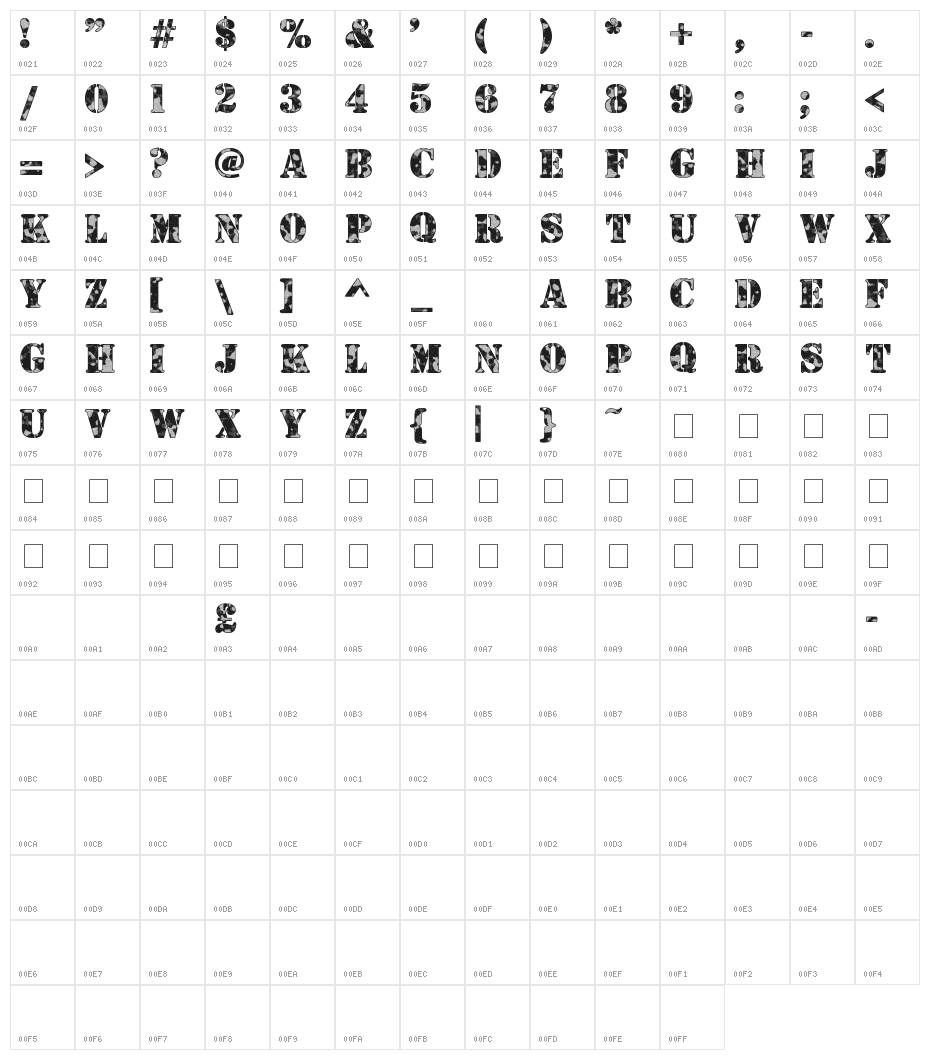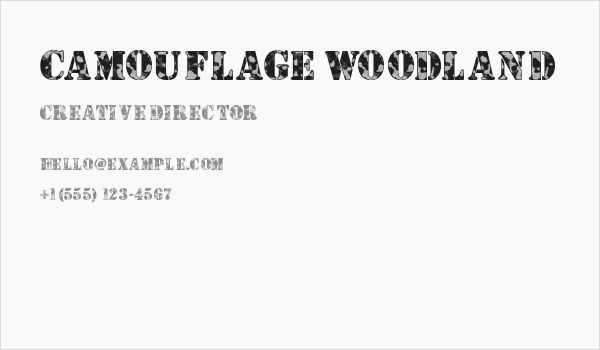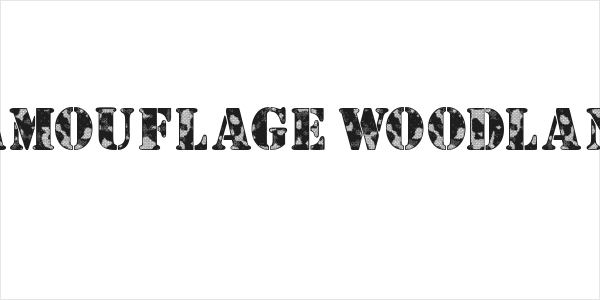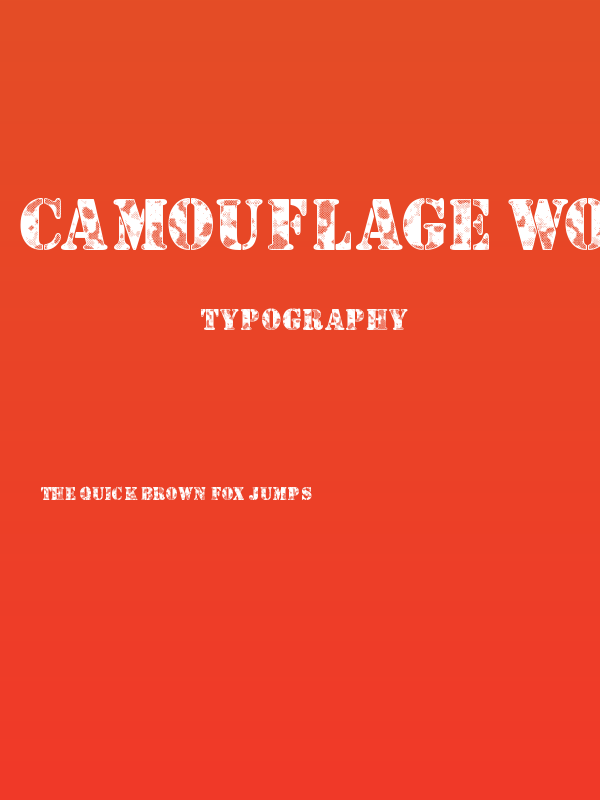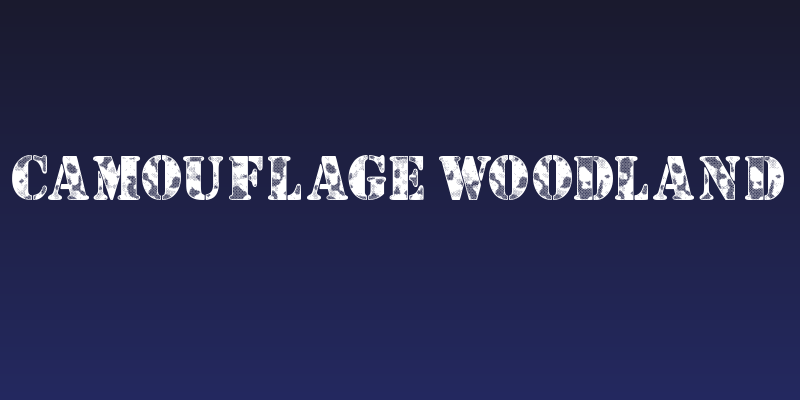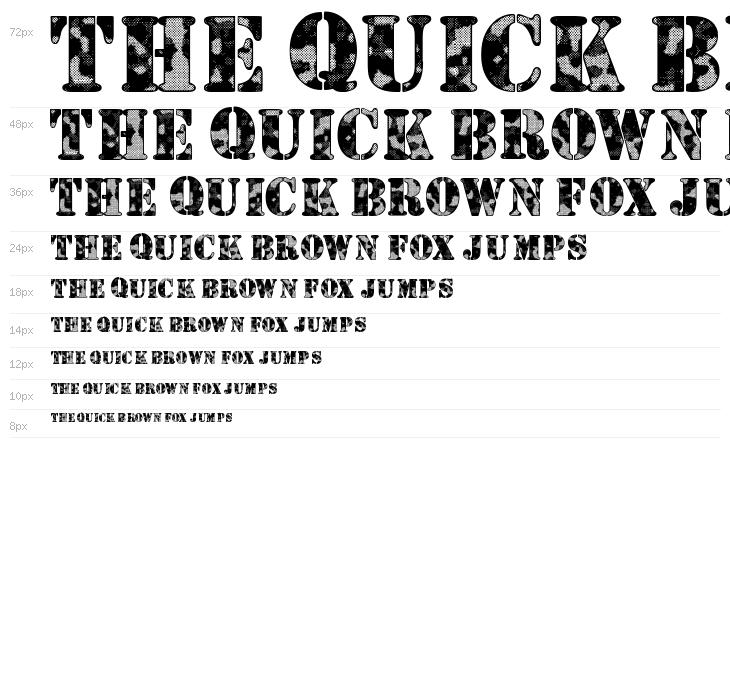
Camouflage Woodland Font
Camouflage Woodland Description
This font features a bold and rugged design with a camouflage pattern embedded within each character. The letters are uppercase and have a strong, sturdy appearance, reminiscent of military or outdoor themes. The camouflage pattern adds a textured and dynamic look, making it stand out for projects that require a bold statement. The characters are well-defined and maintain a consistent style throughout, with a slight serif touch that enhances their robust appearance. The numbers and special characters follow the same design principles, ensuring uniformity across all elements.
| Proposed Projects | Ideal for military-themed posters, outdoor adventure branding, survival gear packaging, and any project needing a bold, rugged aesthetic. |